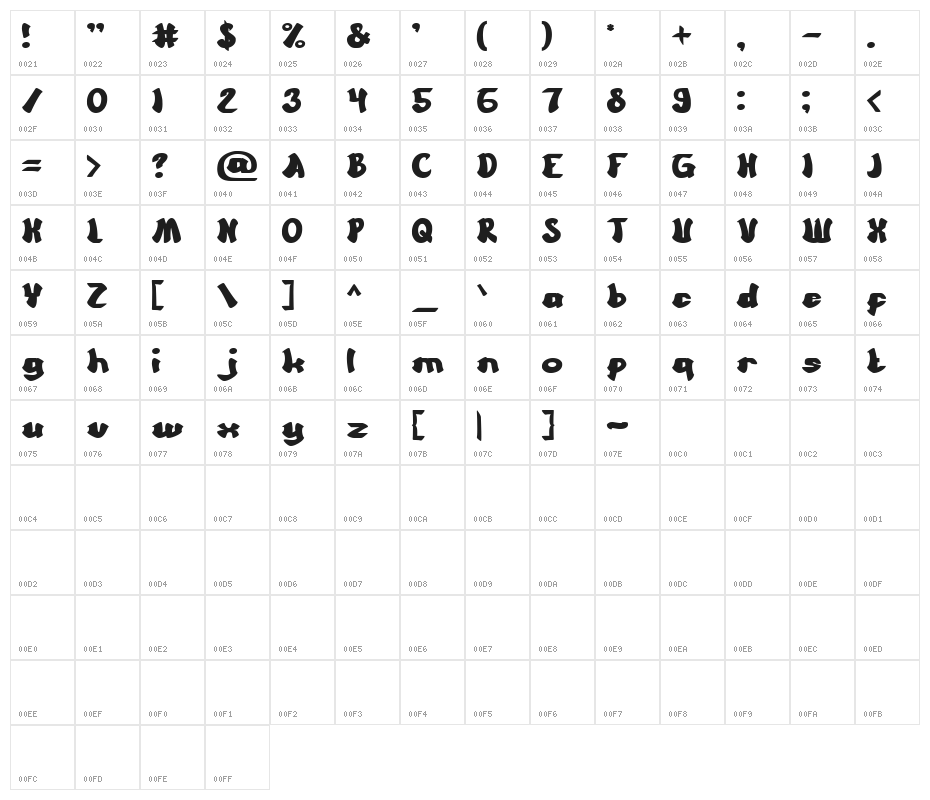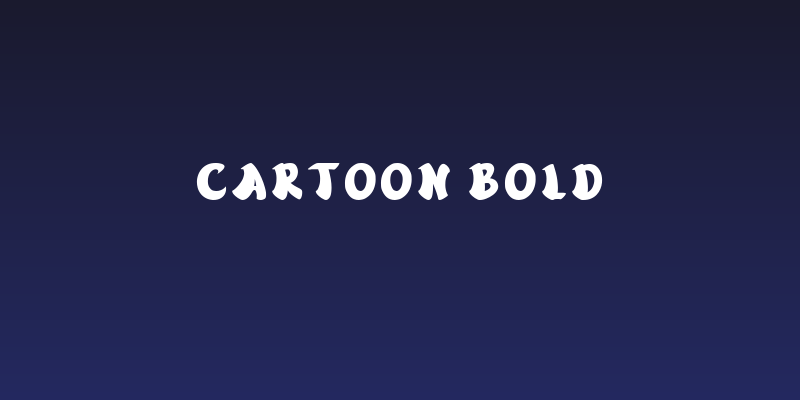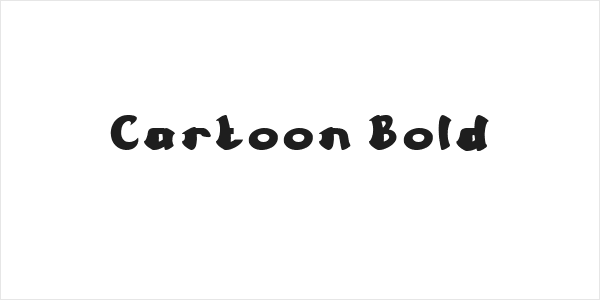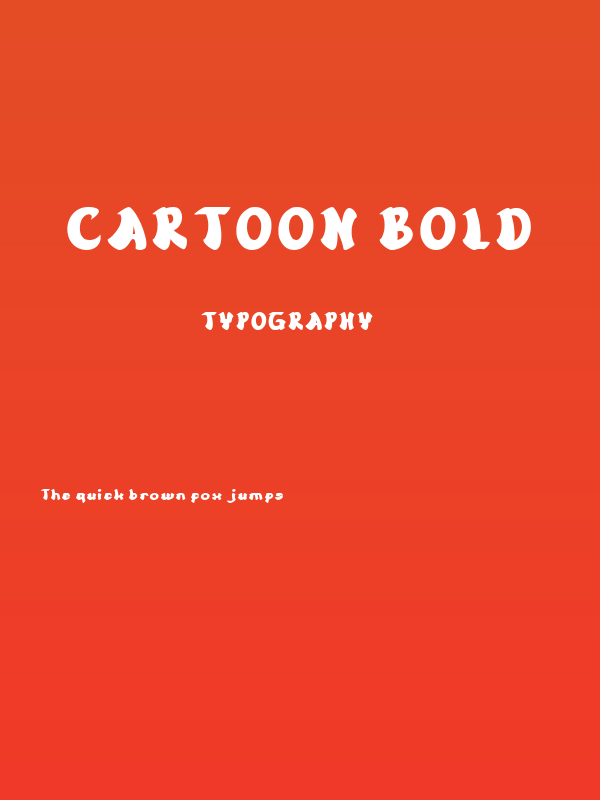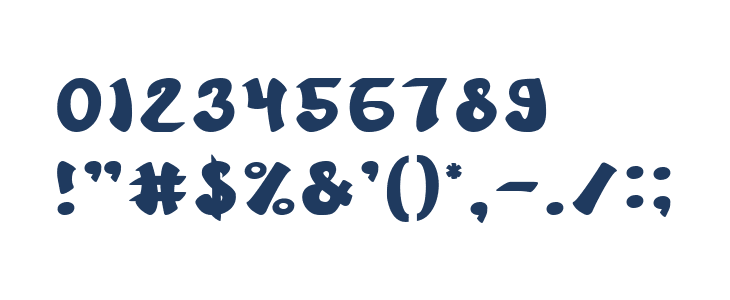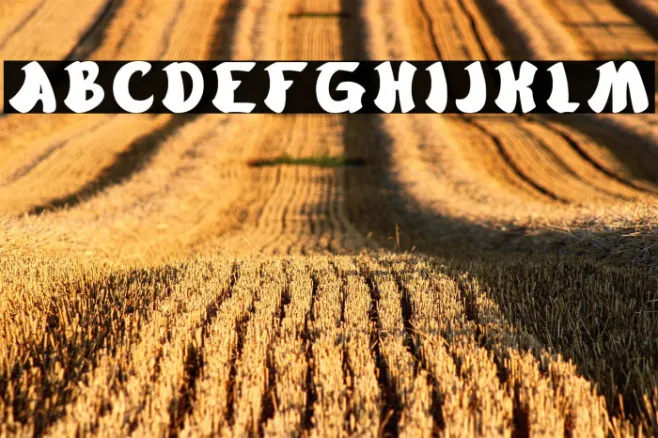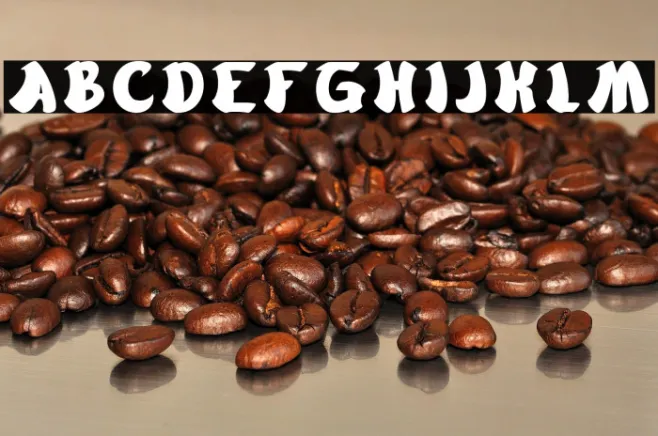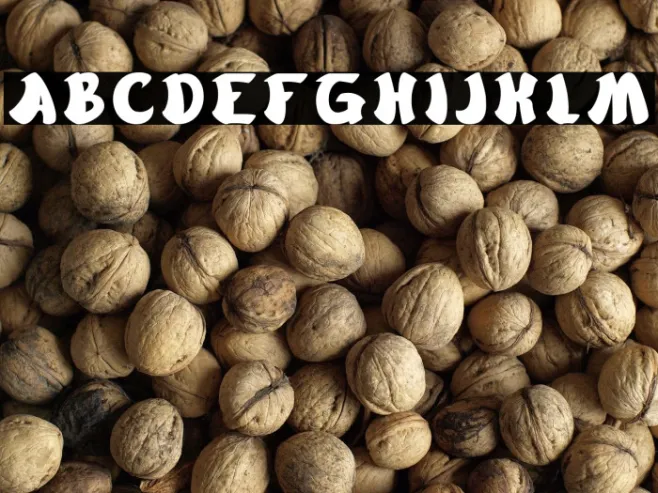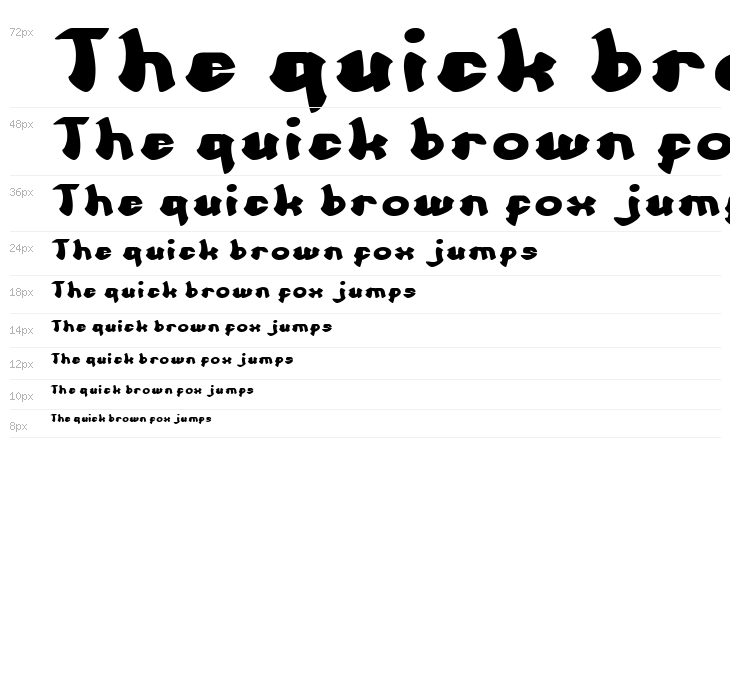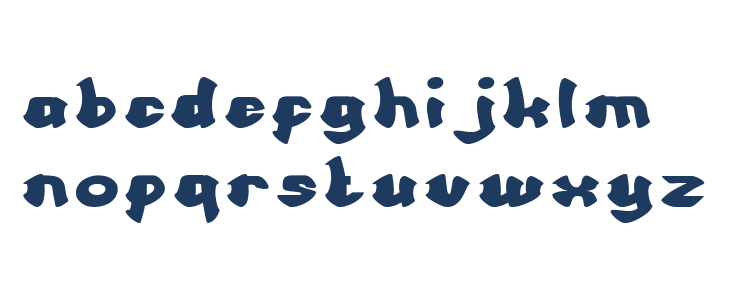
Cartoon Bold Font
Cartoon Bold Description
This font features a playful and bold design, characterized by its thick, rounded strokes and exaggerated curves. The letters have a whimsical, cartoonish appearance, making them stand out with a lively and energetic vibe. The uppercase and lowercase letters maintain a consistent style, with the uppercase being slightly more pronounced. Numbers and special characters follow the same bold and playful aesthetic, ensuring uniformity across all characters. The font's overall look is both fun and approachable, ideal for projects that require a touch of humor and creativity.
| Overall Style | Cartoonish, Playful |
| Proposed Projects | Ideal for children's books, comic strips, playful branding, and animated video titles. |